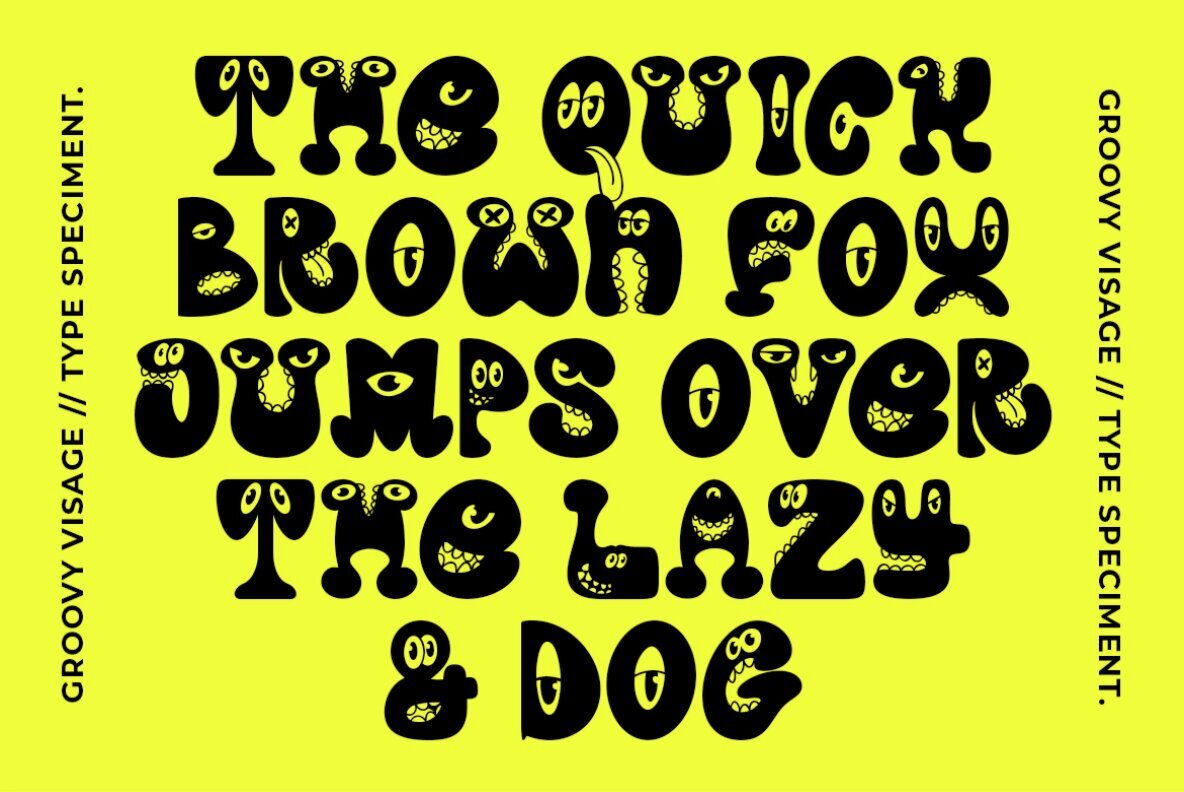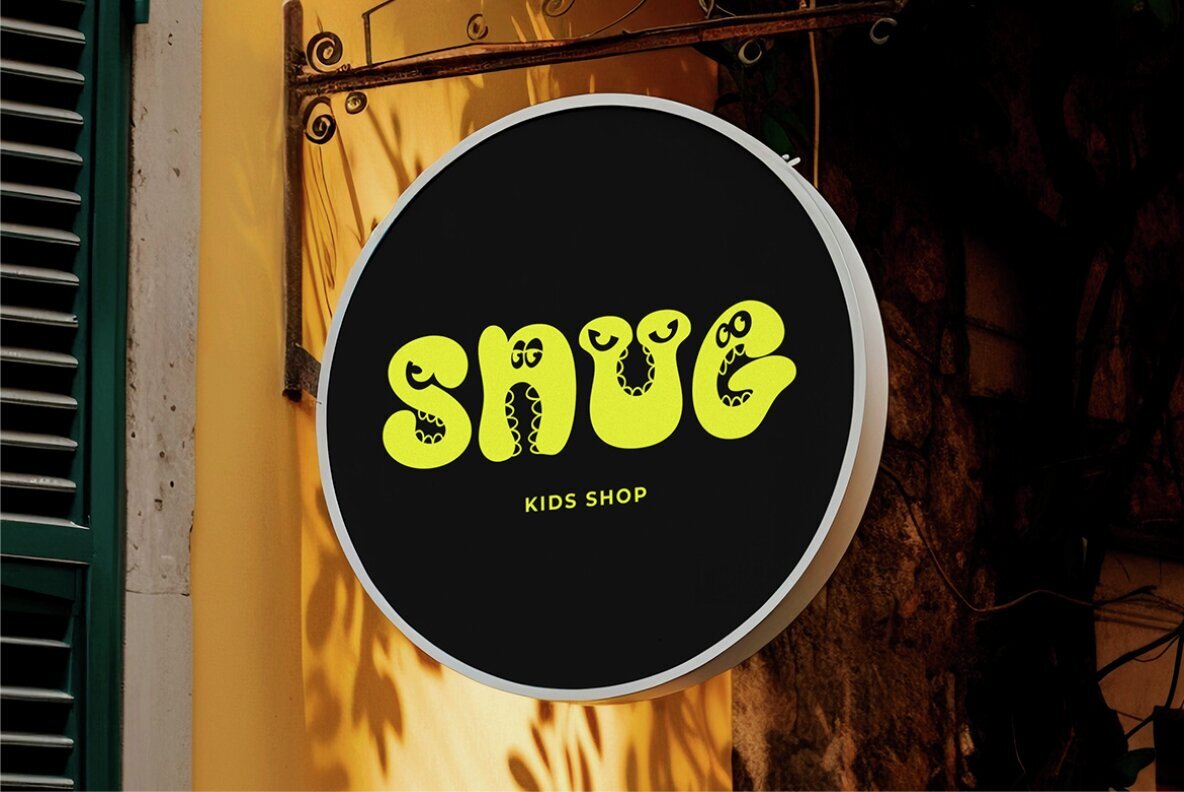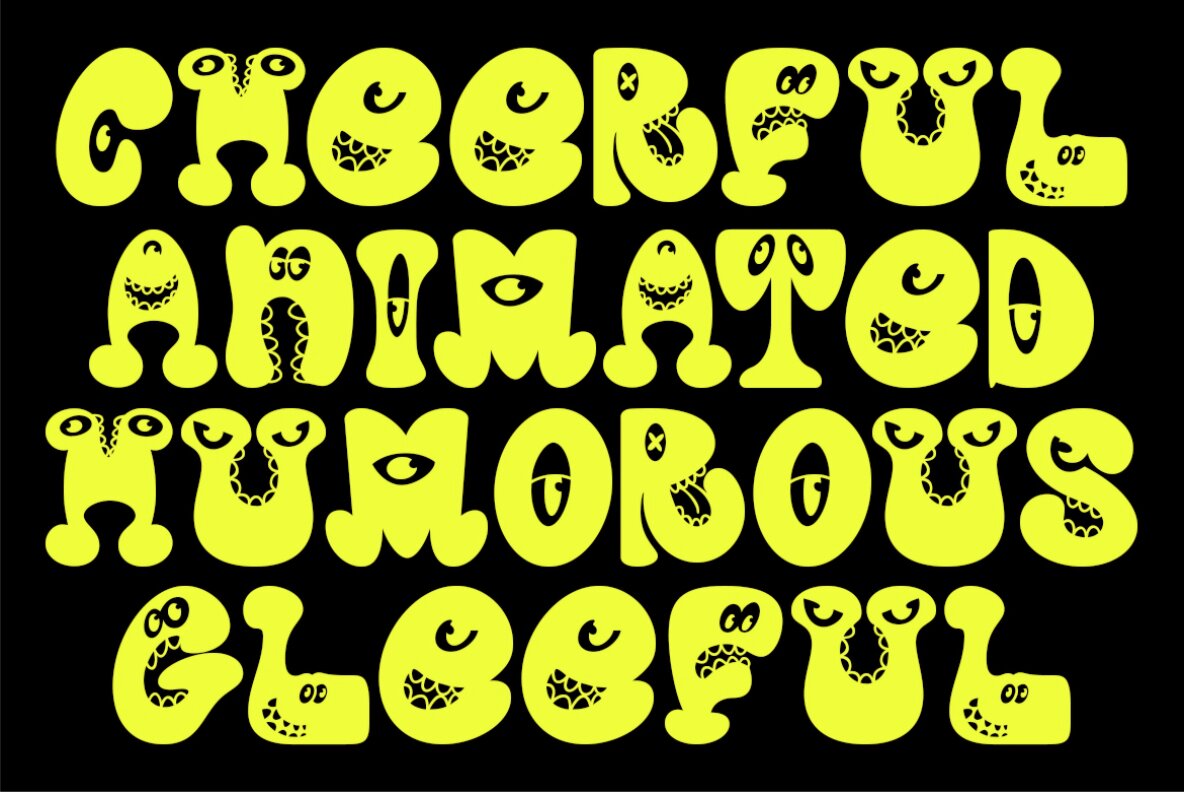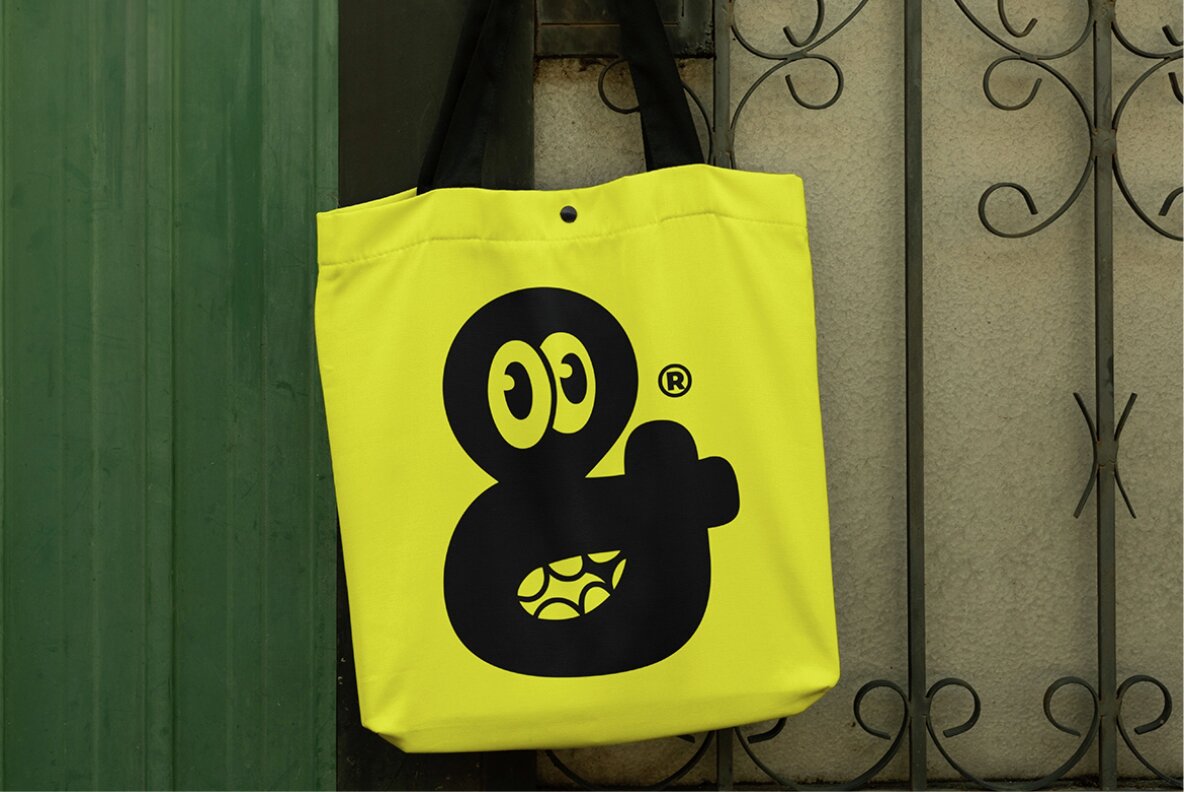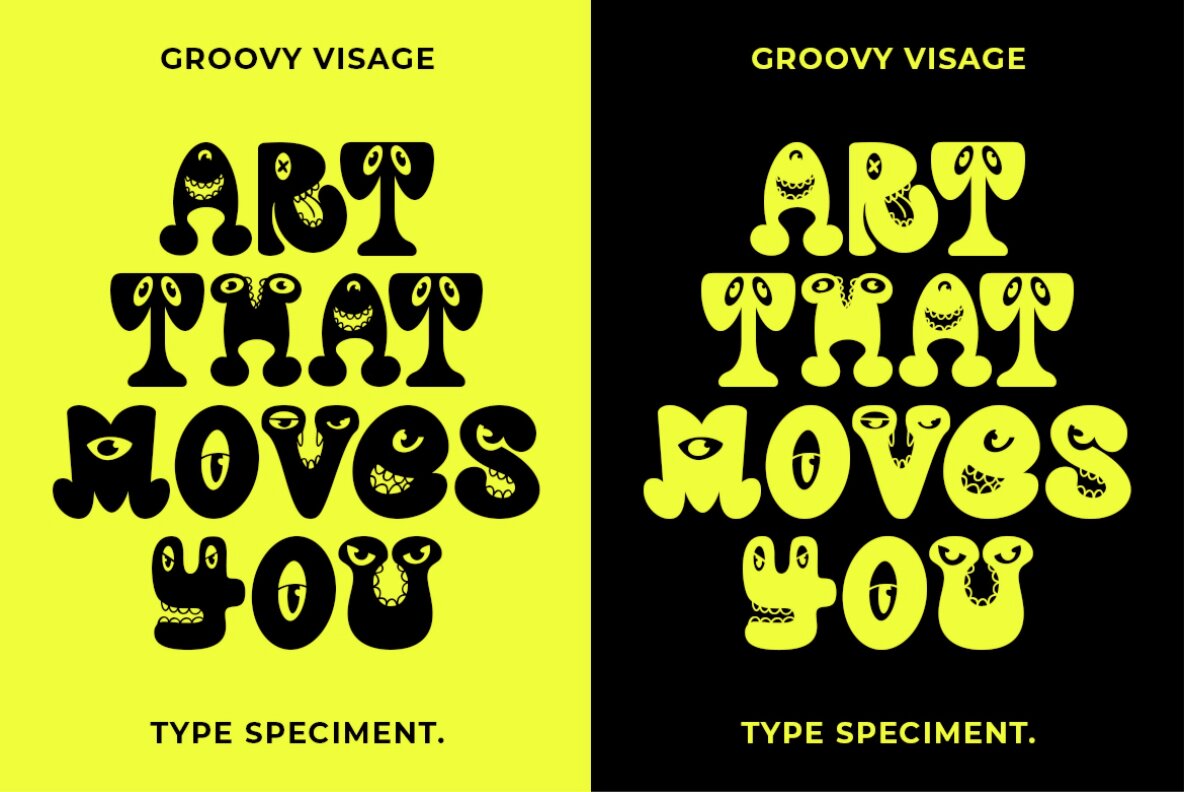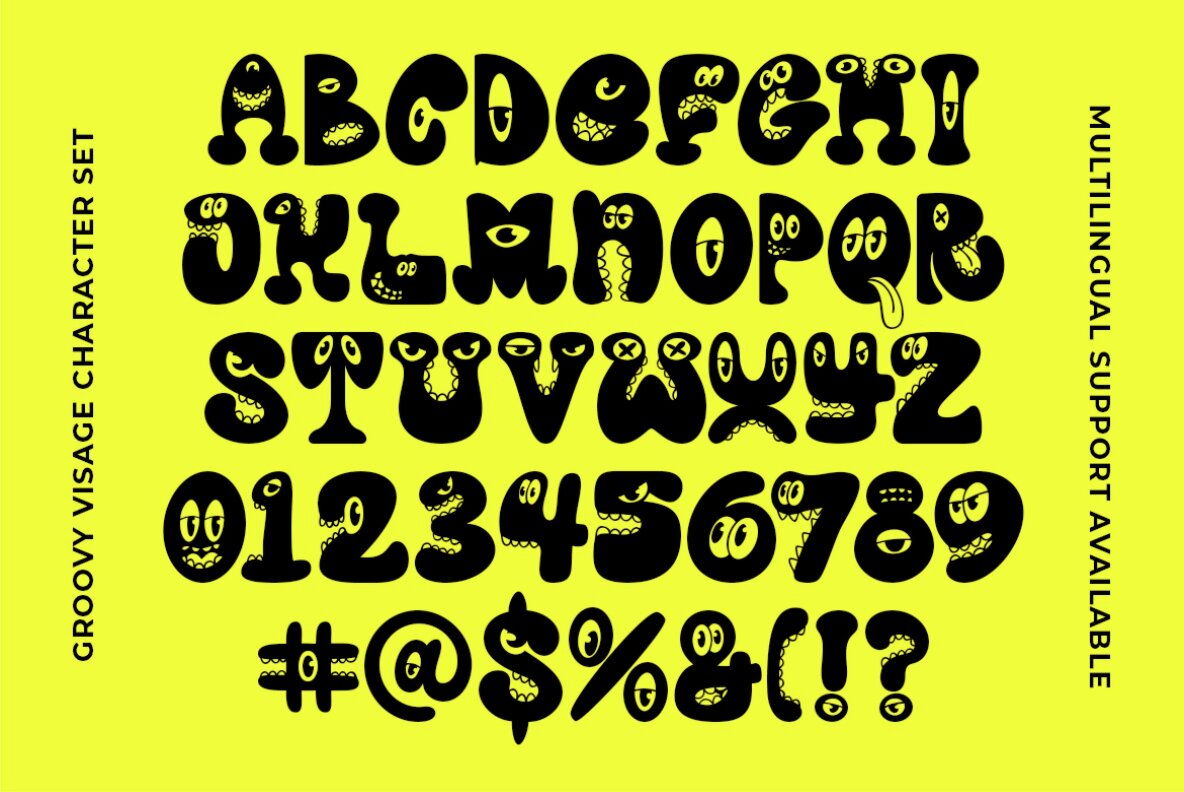
Groovy Visage Font
Groovy Visage
Groovy Visage is a character display font brimming with playful energy and cheerful vibes. Designed with an array of charming monster expressions, this font strikes a balance between whimsical design and functionality. It's perfect for projects aimed at children or any design that calls for a lively and joyful touch.
Groovy Visage includes a complete set of uppercase and lowercase letters, numerals, and punctuation, along with multilingual support. This versatility makes it an ideal choice for a range of creative projects, allowing you to infuse your work with a sense of fun and imagination. Whether you're designing a playful logo, a children's book, or whimsical posters, Groovy Visage is the perfect font to bring your ideas to life.